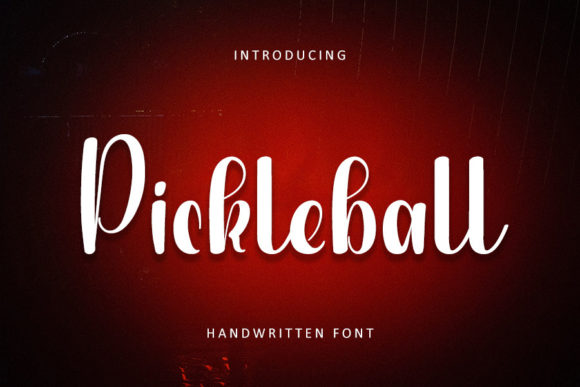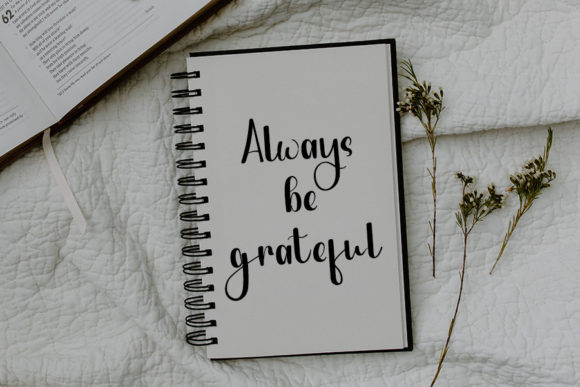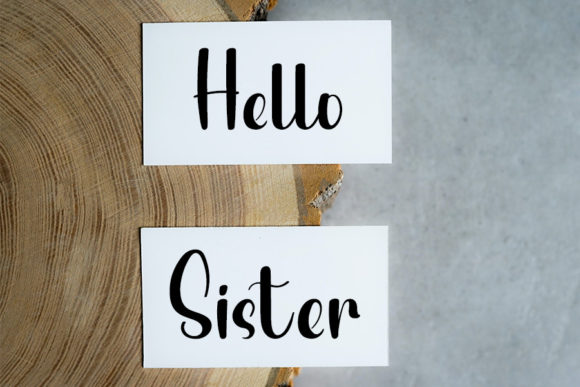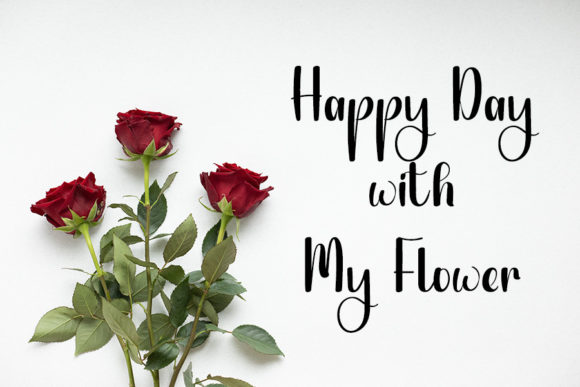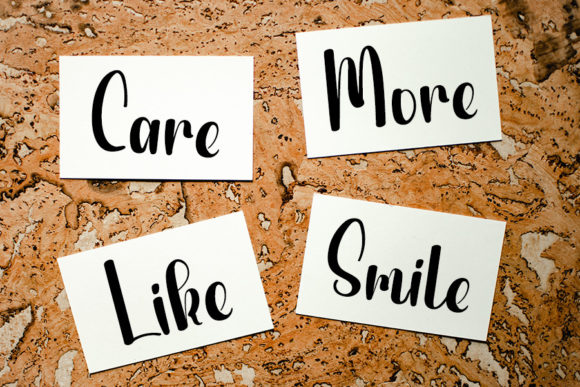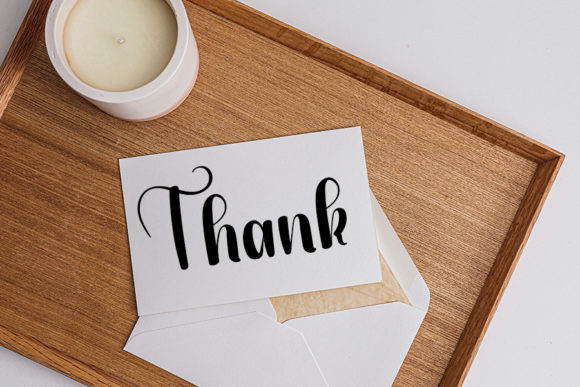
Pickleball Font
About Pickleball Font
Pickleball is a stylish handwritten font that exudes a contemporary atmosphere while maintaining impeccable form, drawing inspiration from timeless classic calligraphy. The font strikes a perfect balance and offers a varied yet cohesive design, intending to elevate the aesthetic appeal of your projects.
The contemporary vibe of Pickleball makes it well-suited for a range of design applications. Whether you’re working on digital or print media, this font adds a touch of modern elegance to your text, ensuring a visually pleasing experience for your audience.
Inspired by classic calligraphy, Pickleball brings a sense of timeless sophistication to your projects. The careful design and attention to detail in each stroke make this font a versatile choice for enhancing the beauty of various design elements, from logos to invitations and beyond.
In summary, Pickleball is more than just a font; it’s a design asset crafted to infuse your projects with style and sophistication. Its stylish handwritten script, contemporary atmosphere, and impeccable form make it a valuable tool for creating visually appealing and well-balanced designs. Explore the possibilities and let Pickleball be the perfect choice for enhancing the beauty of your creative endeavors.